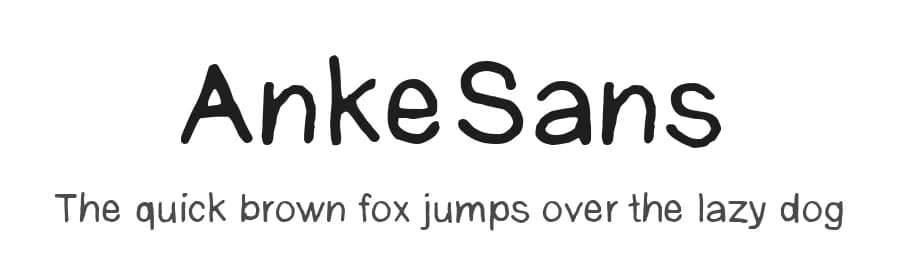
About AnkeSans Font
AnkeSans is a script & handwritten font designed by anke-art. It includes 223 glyphs, a regular weight, TTF (TrueType) format, and 214 languages. AnkeSans is free to download; check the license details on this page before commercial use. Script & handwritten fonts like AnkeSans work best for wedding invitations, greeting cards, signatures, and elegant branding.
AnkeSans Font is a script font that shines as a display or heading face. Pair it with a clean sans-serif or serif font for body text β the contrast creates a clear hierarchy while the two styles stay balanced and easy to read.
AnkeSans Font is a script handwritten typeface by anke-art, ideal for logos, invitations, branding, and creative projects.